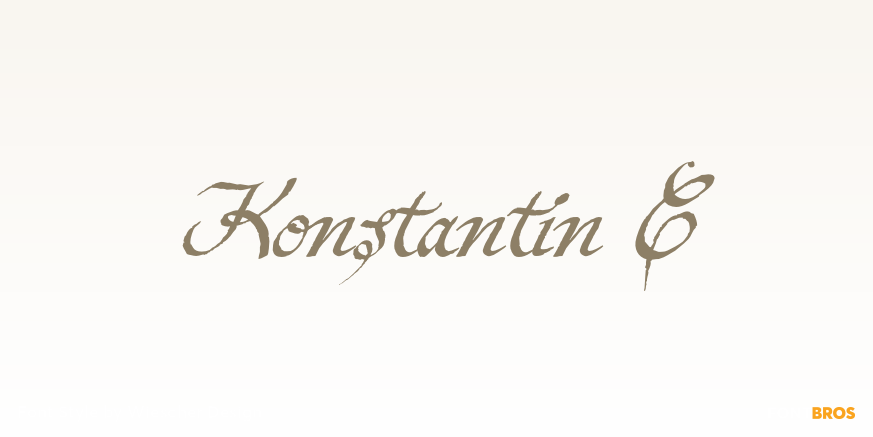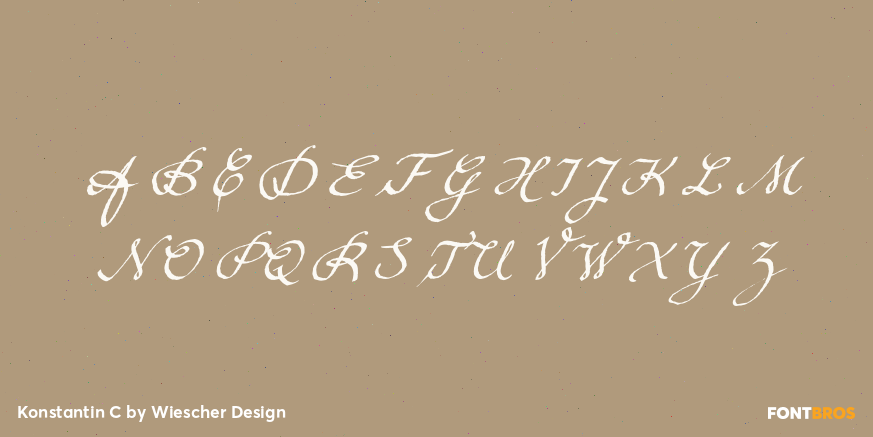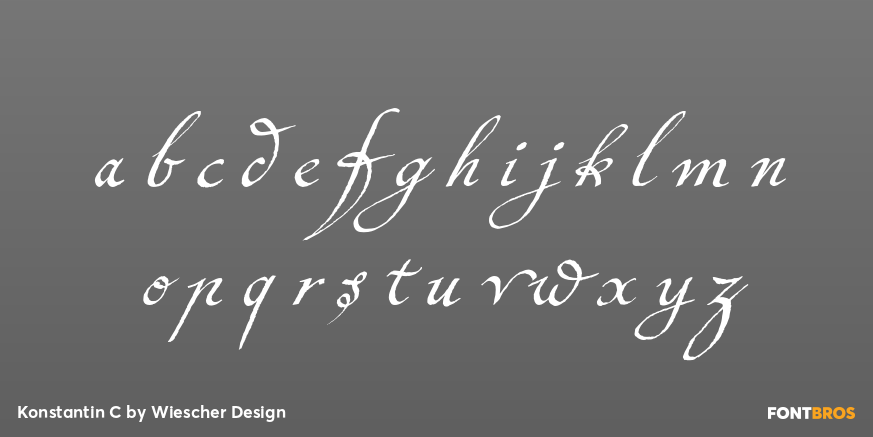
Konstantin C Font by Wiescher Design
About:
My son Konstantin wants to become a cook. So I thought it would be a nice idea if I designed a script for his fabulous future menus as a gift for him. I think he will become a great cook.
The three Konstantin cuts can be mixed. The A cut has the most straightforward letterforms, the B cut has more swashes in the capitals and swinging descenders and last but not least, the C cut gives you some fancy lowercase letters.
All three cuts have different numerals.
If you mix the fonts be careful not to overdo things, mostly - even with scripts - less is more.